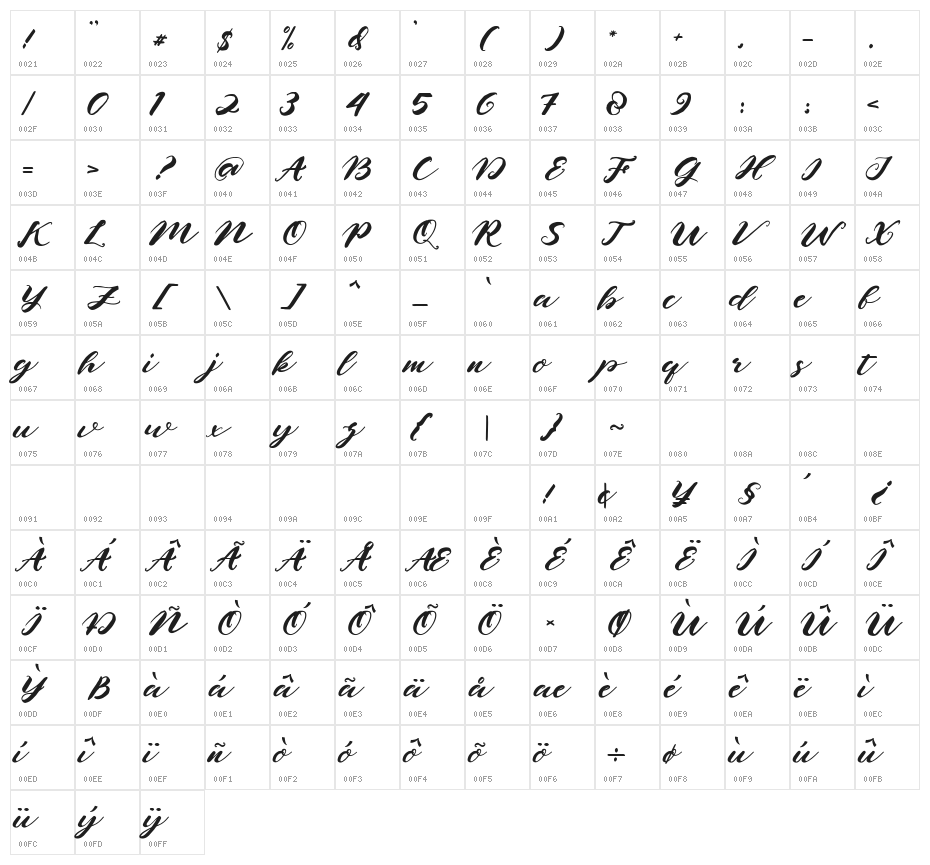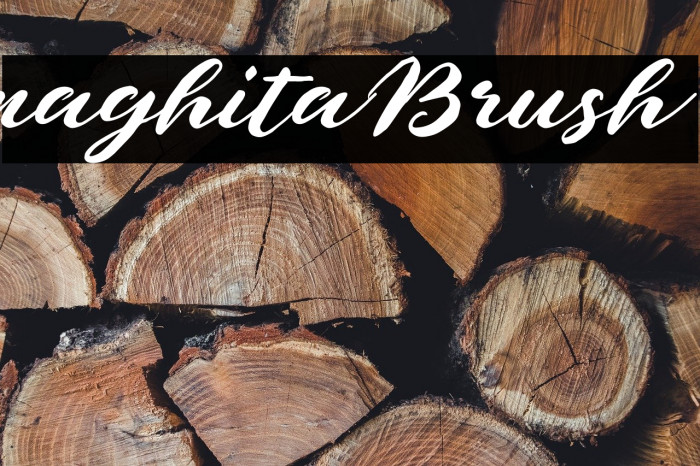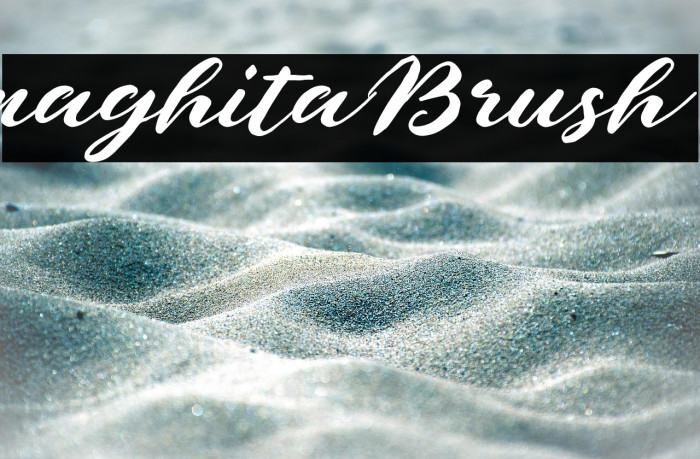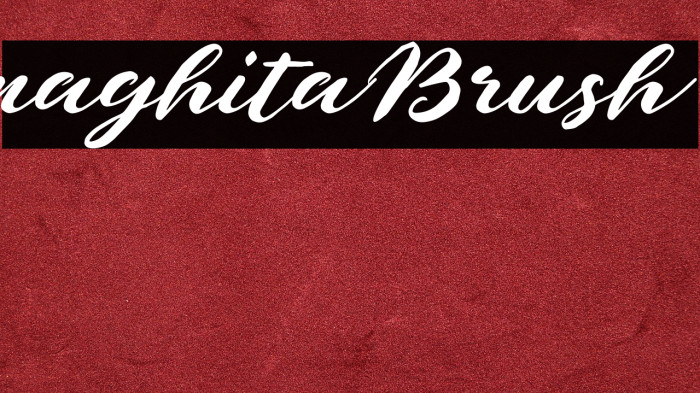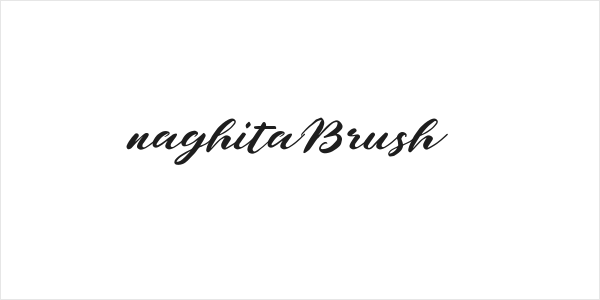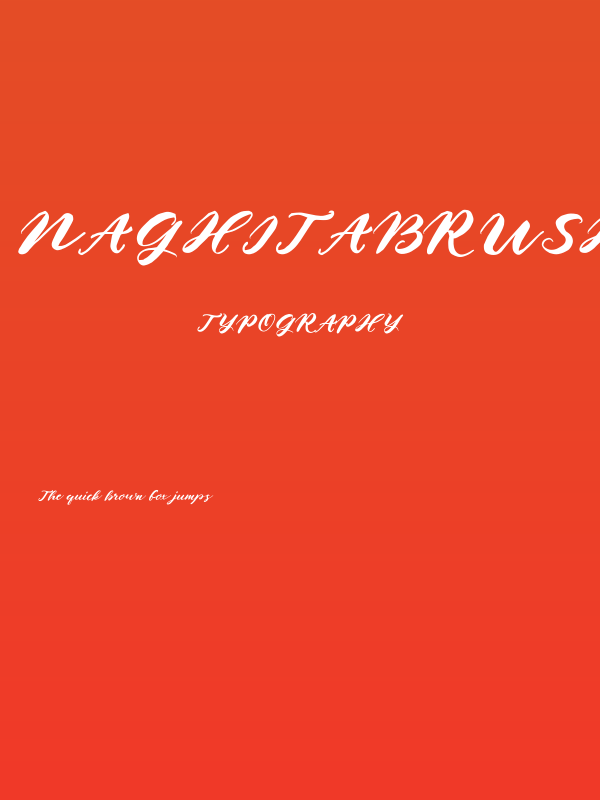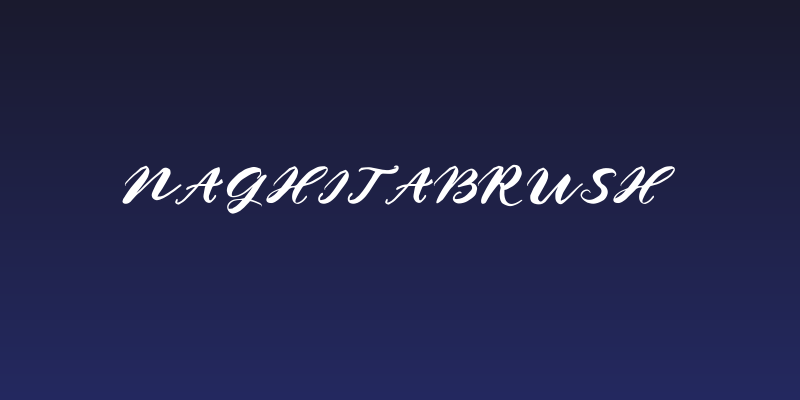
naghitaBrush Font
naghitaBrush Description
This font exudes a dynamic and artistic flair, characterized by its fluid, cursive strokes that mimic the natural flow of handwriting. The uppercase letters are bold and expressive, with elegant loops and swirls that add a touch of sophistication. The lowercase letters maintain a consistent style, offering a harmonious blend of curves and angles. Numbers and special characters are crafted with the same attention to detail, ensuring a cohesive look across all elements. The font's brush-like texture gives it a handcrafted feel, making it ideal for projects that require a personal and creative touch.